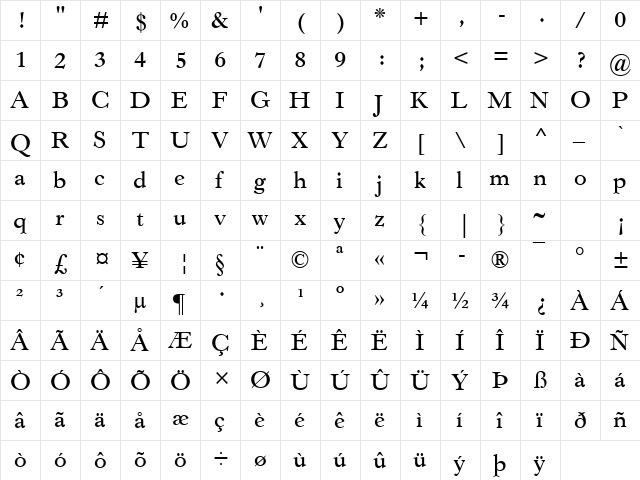
Horley OS MT Semibold Regular
| Foundry | Agfa Monotype Corporation |
Design Context for Horley OS MT Semibold Typeface
Horley OS MT Semibold offers clean, dependable letterforms without strong stylistic allegiance, making it a practical choice for designers who need flexibility. Its bold stroke weight gives it real presence on the page.